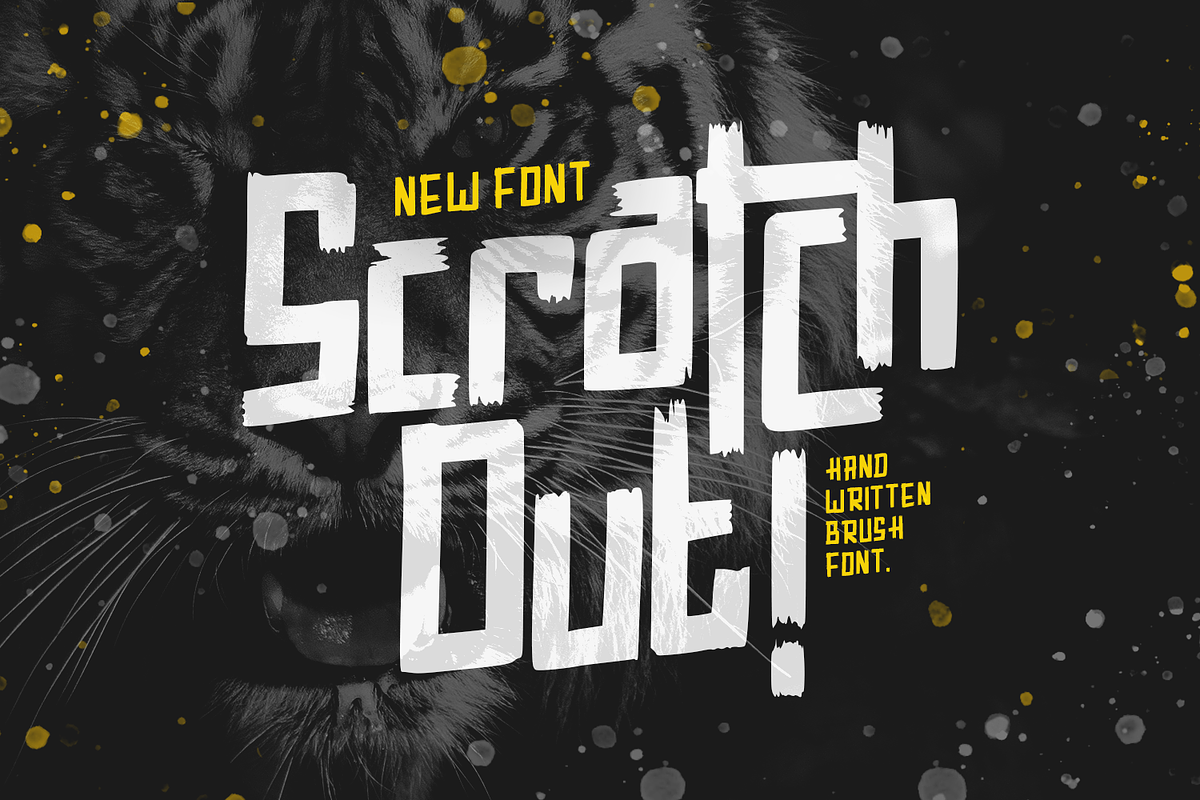
Scratch Out - Urban Brush Font Free Download
Scratch Out - Urban Brush Font Free Download is a bold, gritty typeface that captures the raw energy of street art and urban culture. With its hand-painted brush strokes and edgy aesthetic, this font is perfect for album covers, graffiti-inspired posters, extreme sports branding, and apparel design.
Scratch Out - Urban Brush Font Free Download delivers a rebellious and authentic vibe, making it a go-to choice for creatives who want to make a statement. Its high-impact letterforms and textured details bring movement and emotion to every project, giving your design a powerful streetwise personality.